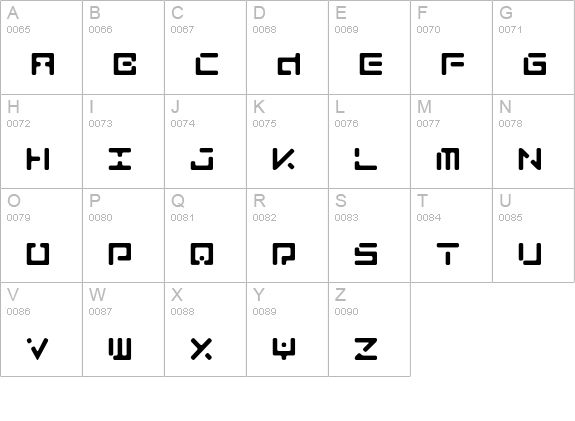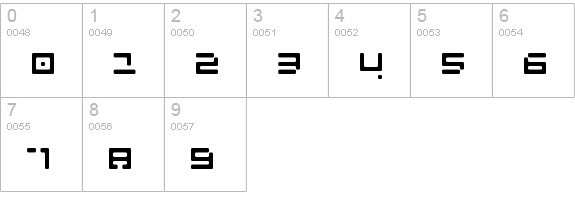
LuggageRoundBrokenRegular Font Details
LuggageRoundBrokenRegular font is a unique and eye-catching typeface that exudes a sense of edgy style and modernity. Its rounded edges and broken design give it a distinct and unconventional look that is sure to make your designs stand out. This font is perfect for projects that require a touch of creativity and personality. What's even better is that LuggageRoundBrokenRegular font is available for free download at FontsMarket.com. You can easily add this font to your collection without breaking the bank. So go ahead and give your designs a fresh and dynamic look with this amazing font today!